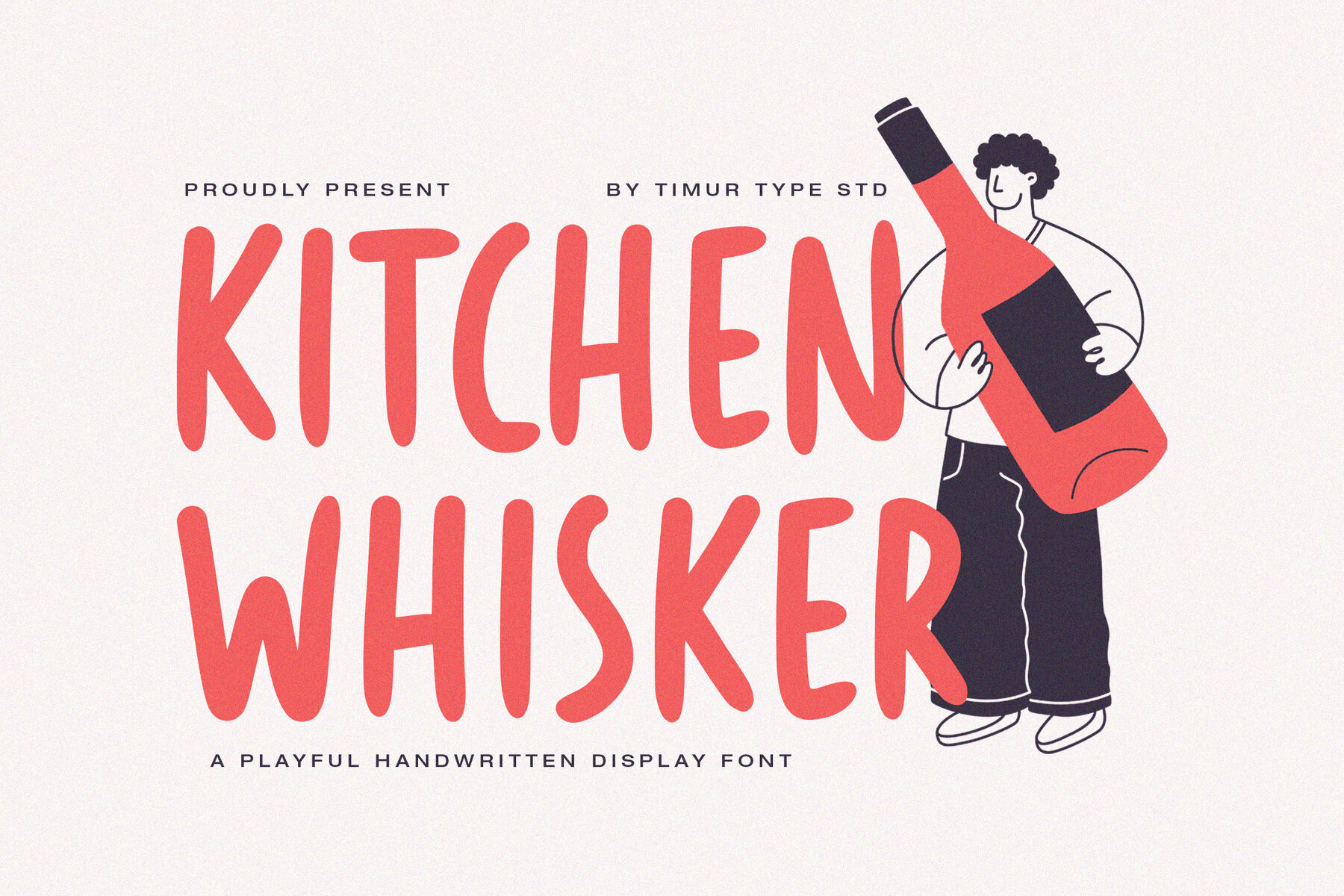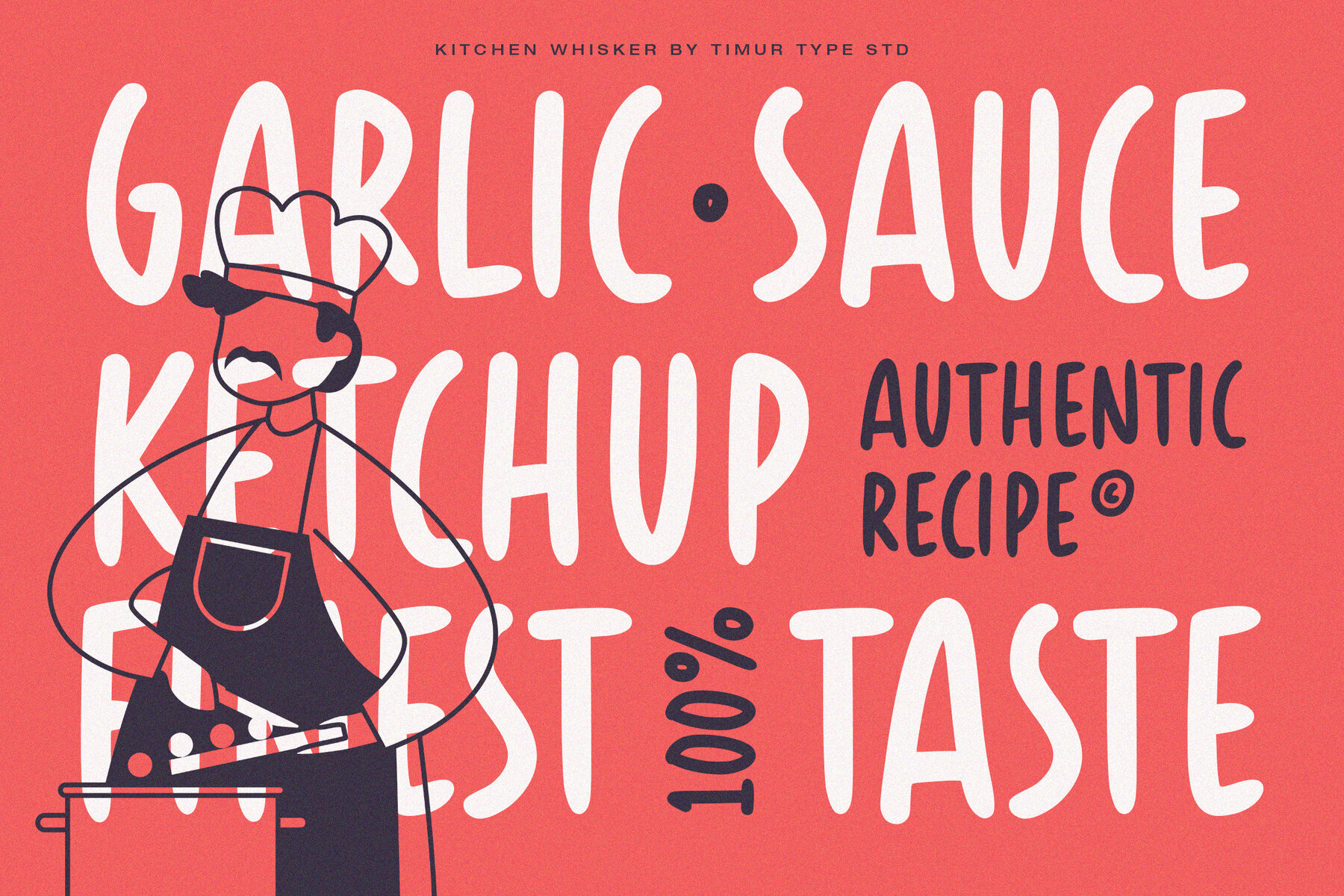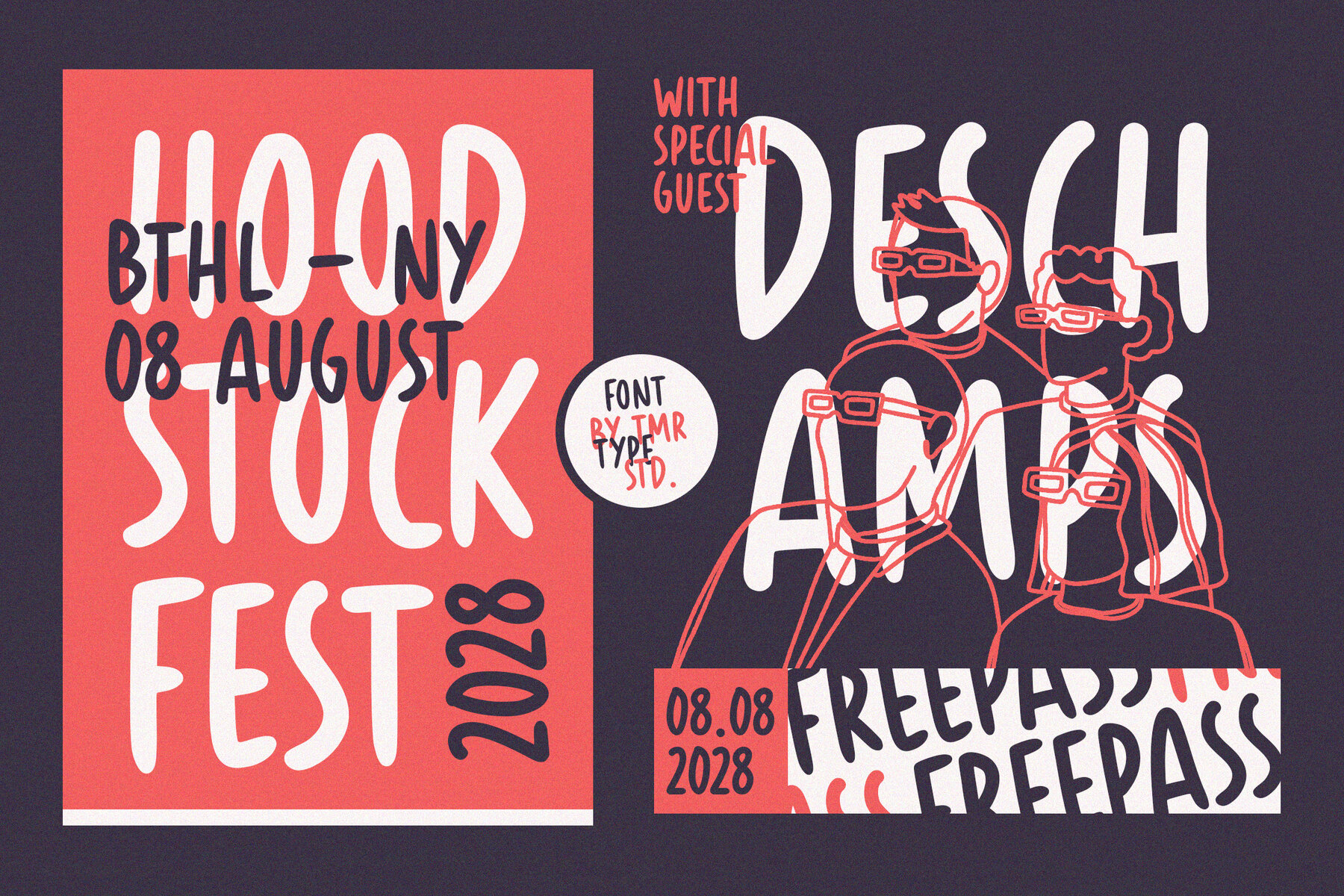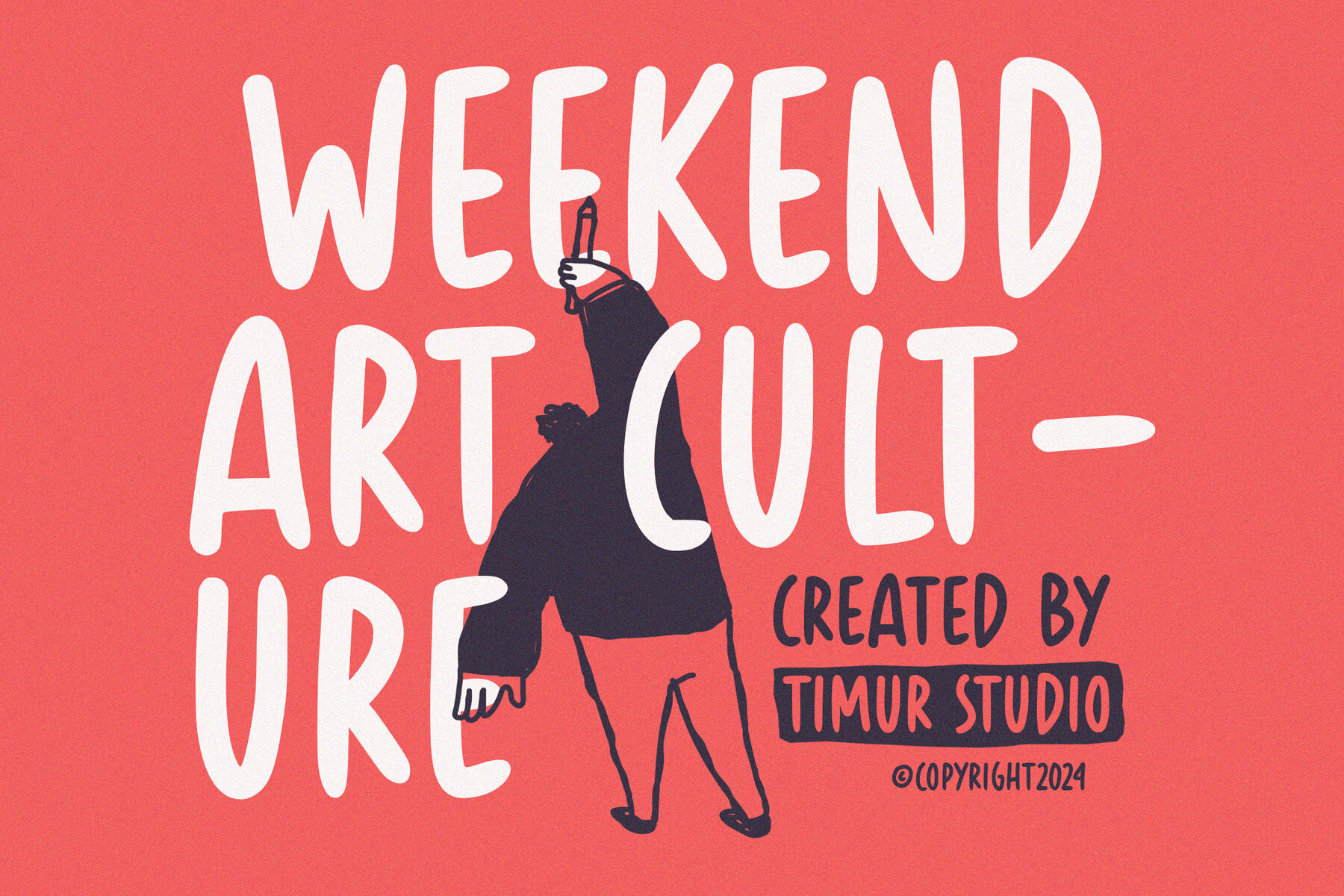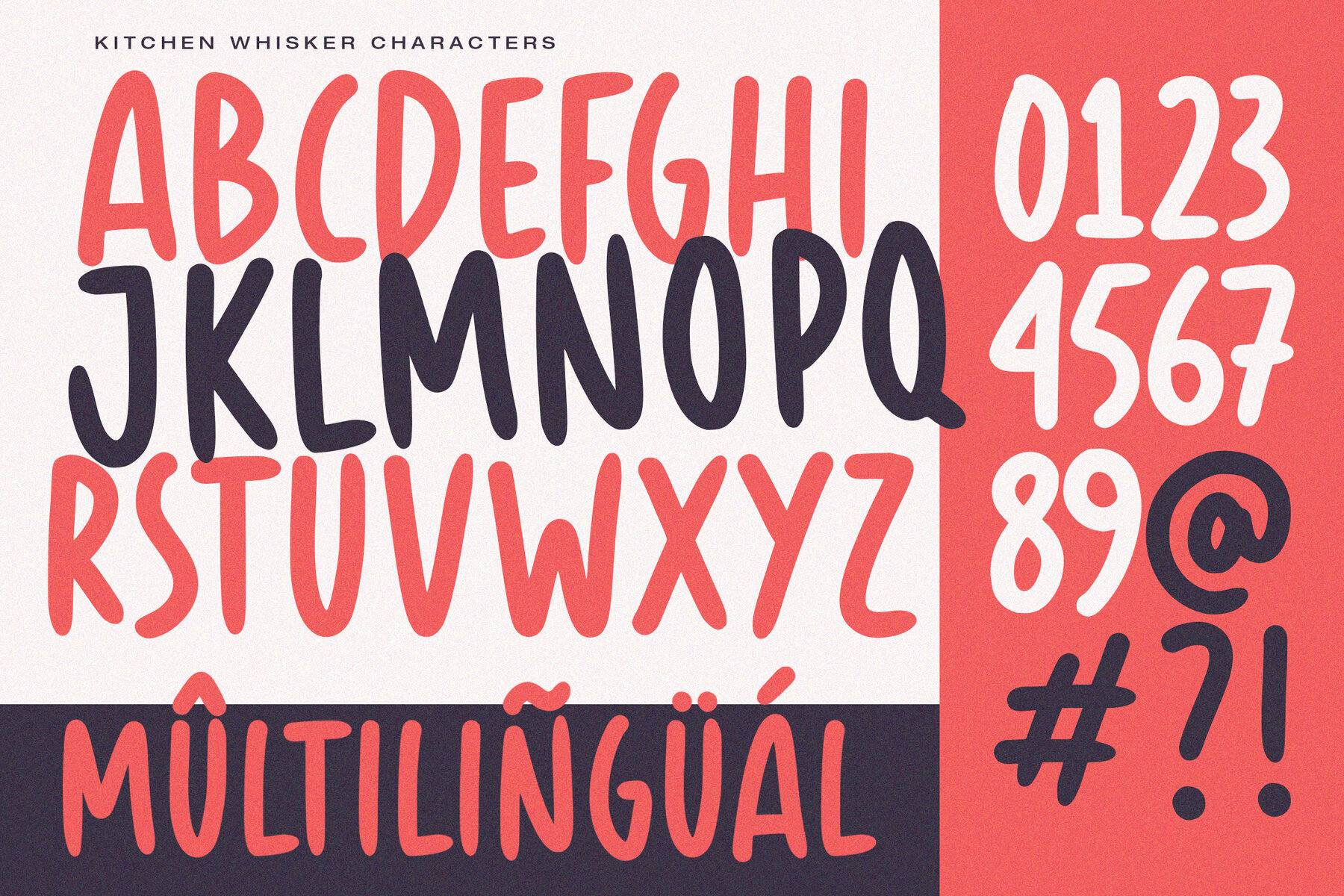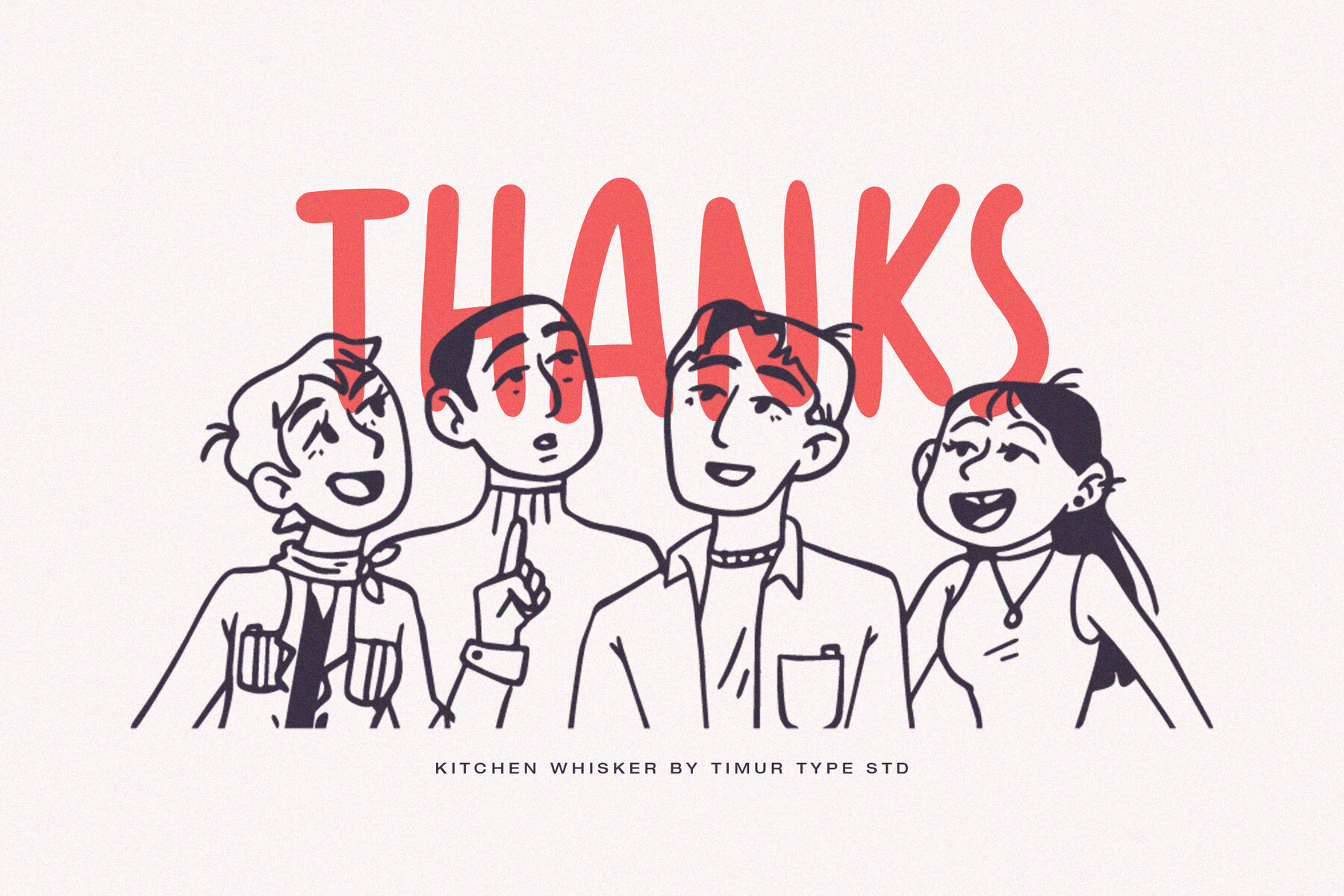
Kitchen Whisker Font
Kitchen Whisker
Introduce a playful touch to your designs with this handwritten display font. The charming and organic strokes combined with delightful curves evoke a sense of homey warmth and creativity. This font is ideal for projects related to food, recipes, and casual branding, seamlessly capturing the essence of comfort and joy.
Kitchen Whisker infuses any design with its whimsical flair, inviting viewers to appreciate each word. Its unique style offers a lively yet intimate experience, making it perfect for engaging and memorable communication in various creative endeavors.